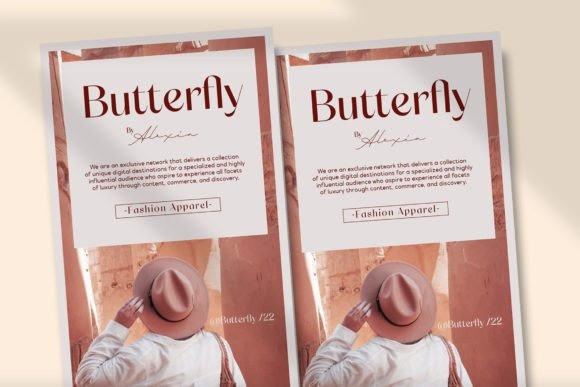
Quinshy Font
Quinshy Modern Beauty Elegant Aesthetic Sans Serif – Expressive Romantic Feminine Lovely Logo Branding Font
Quinshy comes with some alternates and ligatures that you can combine to make a perfect typography design. It is perfect for your upcoming projects such as luxury logo and branding, classy editorial design, woman’s magazines, cosmetic brands, fashion promotional, art gallery branding, museum, boutique branding, stationery design, blog design, modern advertising design, card invitation, art quote, home decor, book/cover title, special events, and any more.